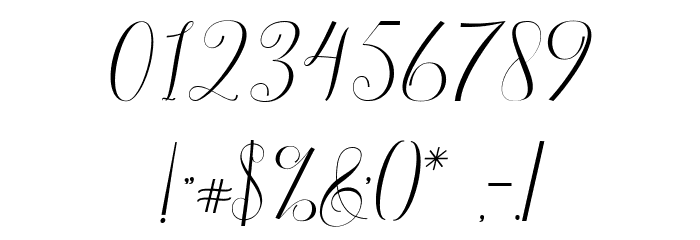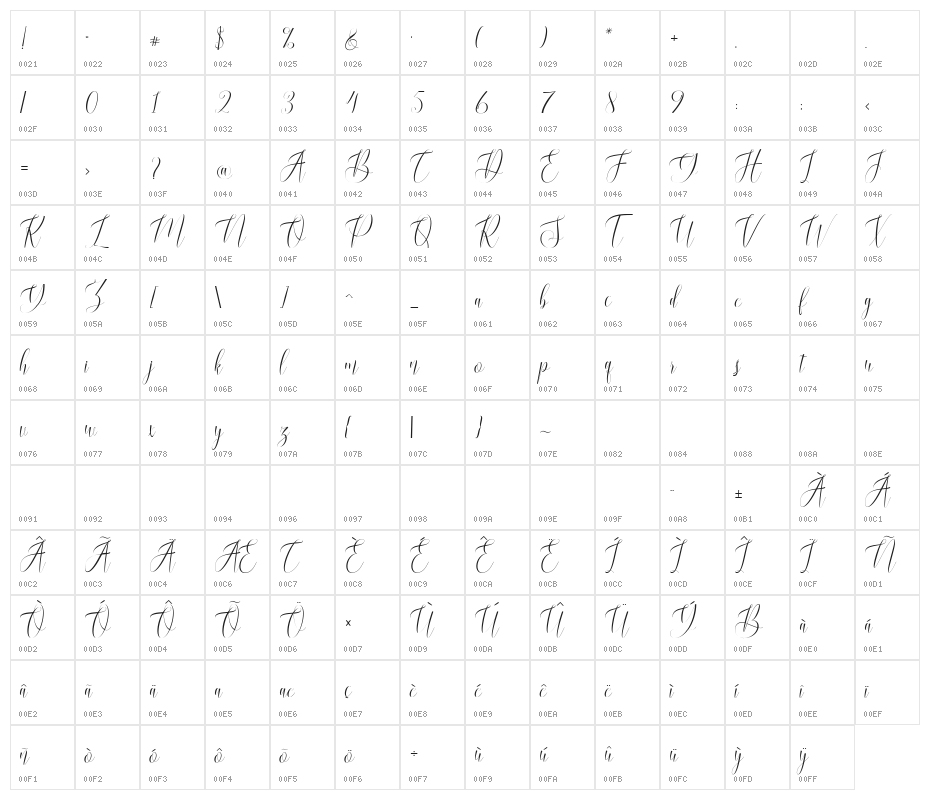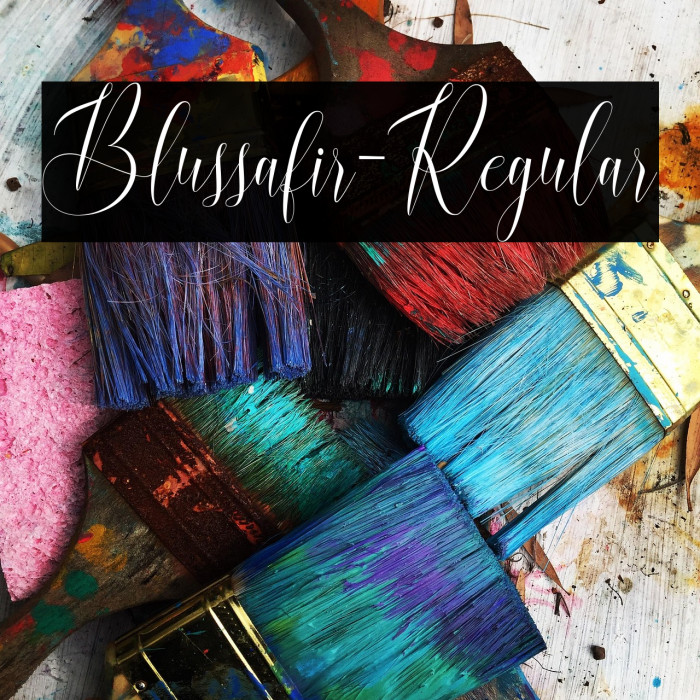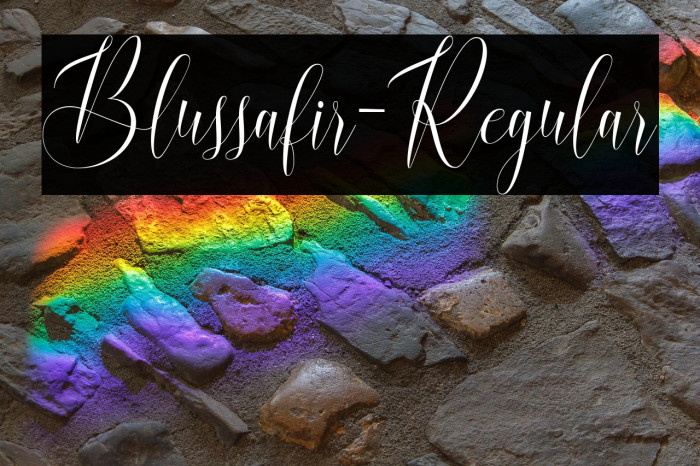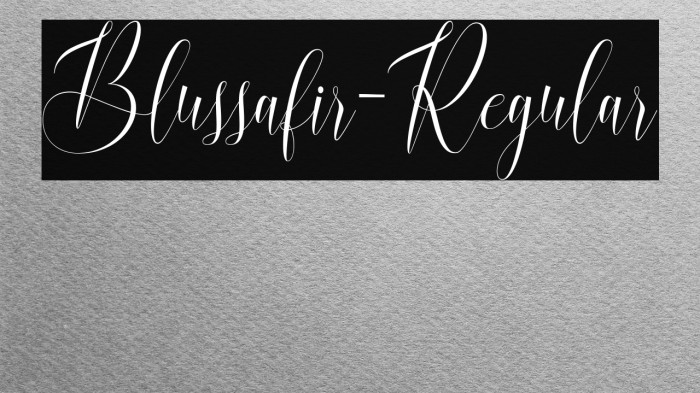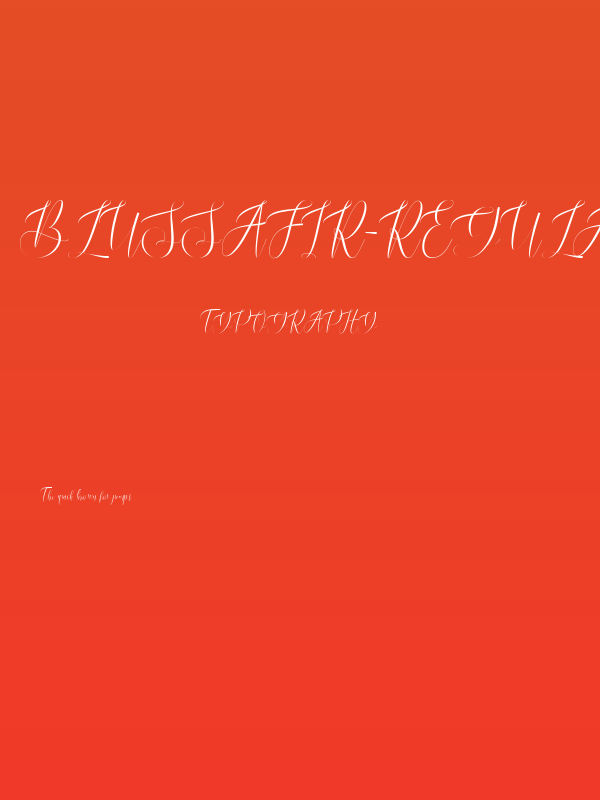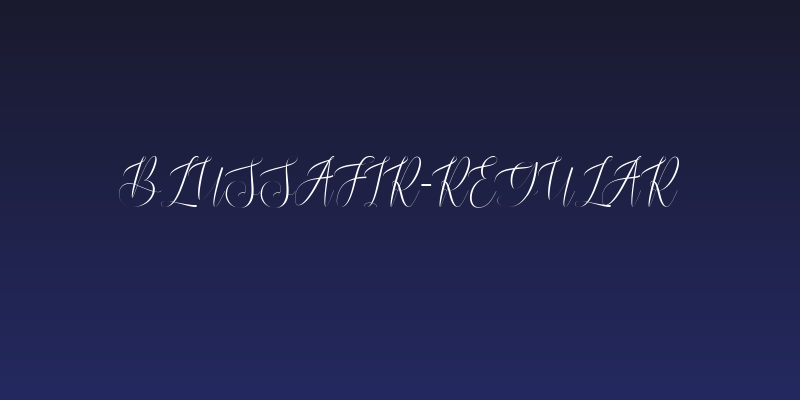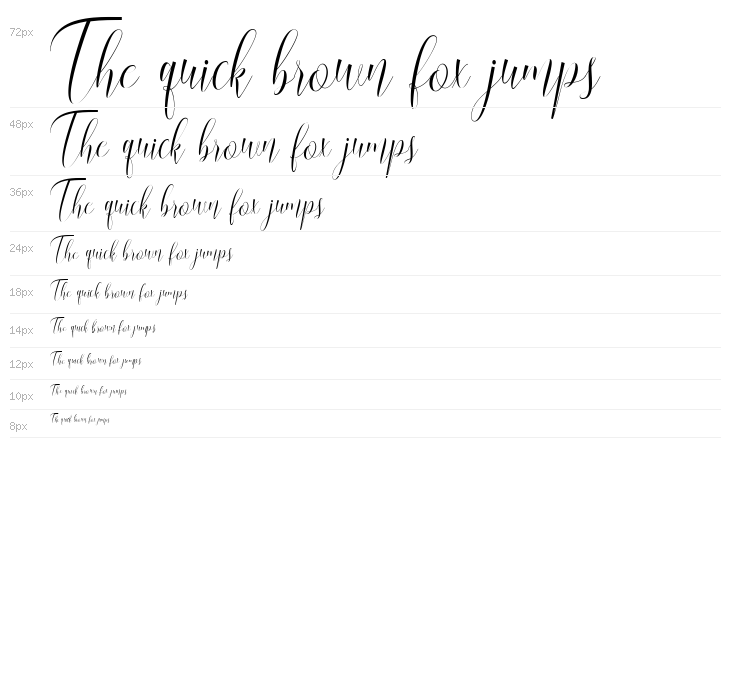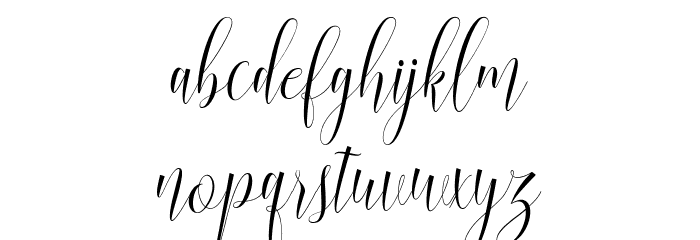
Blussafir-Regular Font
Blussafir-Regular Description
This elegant script font features flowing, cursive letterforms with a refined and sophisticated appearance. The characters are intricately designed with delicate curves and flourishes, giving the font a graceful and artistic feel. The uppercase letters are particularly ornate, with sweeping lines that extend beyond the baseline and cap height, creating a sense of movement and fluidity. The lowercase letters maintain a consistent style, complementing the uppercase with their own subtle embellishments. The numerals and special characters are crafted to match the overall aesthetic, ensuring a cohesive look across all text. This font is ideal for projects that require a touch of elegance and class.
| Overall Style | Elegant, Artistic |
| Proposed Projects | Ideal for wedding invitations, elegant branding, greeting cards, and upscale packaging. |